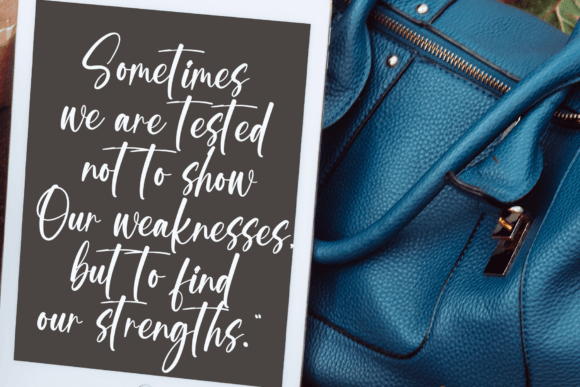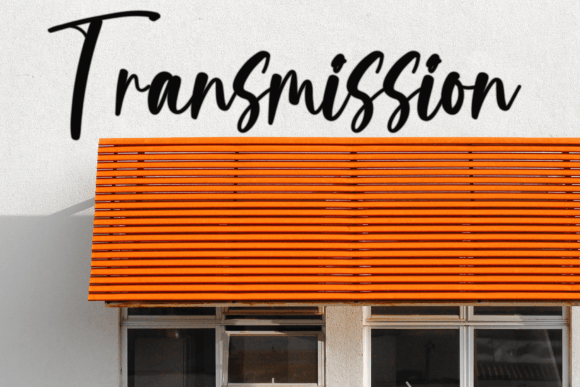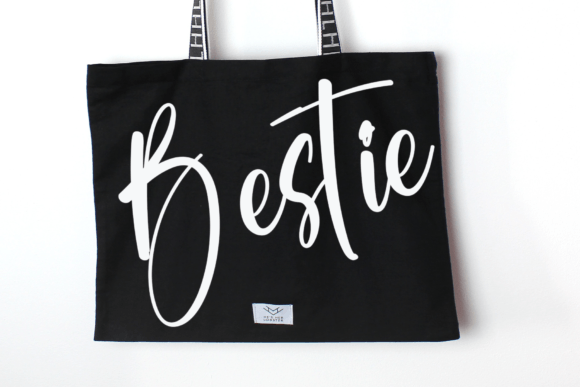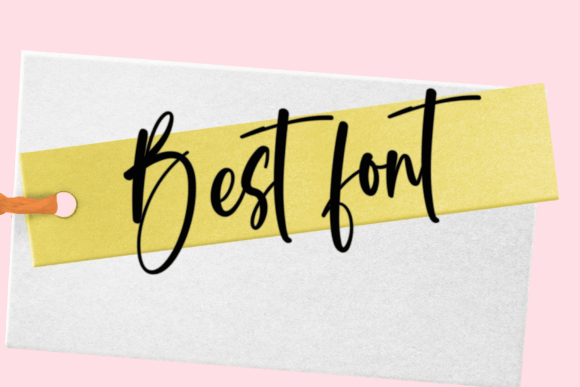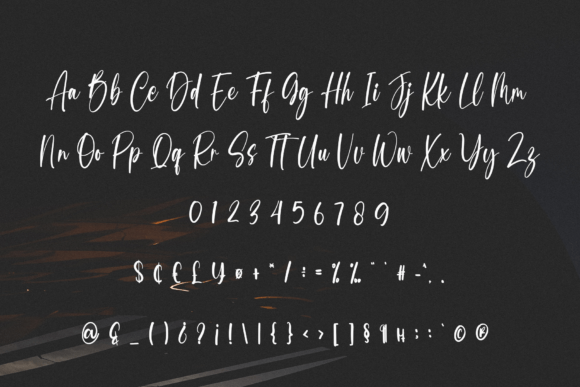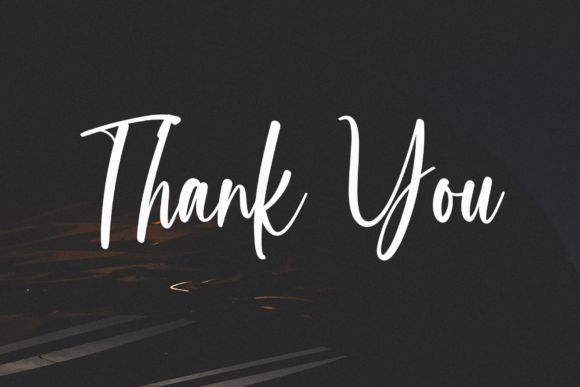
Discover the Charm of Discuss Font: Elevate Your Creative Projects
Are you on the hunt for a font that exudes warmth, friendliness, and a touch of playfulness? Look no further than the Discuss font, a delightful handwritten script that’s sure to capture your audience’s heart. In this article, we’ll dive into the world of Discuss font, exploring its features, uses, and benefits for designers, crafters, and creatives alike.
What is Discuss Font?
Discuss is a cute and casual handwritten font, carefully crafted to convey an incredibly friendly feel. Its unique, flowing script is perfect for adding a personal touch to your designs, making it an excellent choice for a wide range of creative projects. Whether you’re a designer, crafter, or DIY enthusiast, Discuss font is sure to become your new go-to.
Key Features of Discuss Font
- Handwritten script: Discuss font boasts a beautiful, handwritten script that’s both elegant and approachable.
- Friendly feel: The font’s unique character and flowing lines evoke a sense of warmth and friendliness, making it perfect for designs that require a personal touch.
- Cute and casual: Discuss font is ideal for projects that require a playful, laid-back vibe, such as social media graphics, invitations, and DIY crafts.
Uses for Discuss Font
Discuss font is incredibly versatile, making it suitable for a wide range of creative projects. Here are some popular uses for this charming font:
- Instagram graphics: Add a personal touch to your Instagram posts and stories with Discuss font, making your content stand out in a crowded feed.
- Calligraphy scripts: Use Discuss font for DIY calligraphy projects, such as handmade cards, invitations, and gift tags.
- Branding and packaging: Discuss font is perfect for branding and packaging designs that require a friendly, approachable feel.
- Stationery and journals: Add a touch of whimsy to your stationery and journals with Discuss font, making them perfect for personal use or as gifts.
Benefits of Using Discuss Font
So, why choose Discuss font for your creative projects? Here are just a few benefits of using this charming font:
- Easily readable: Discuss font is clear and easy to read, making it perfect for body text and headings.
- Highly versatile: The font’s friendly feel and playful script make it suitable for a wide range of creative projects.
- Time-saving: With Discuss font, you can quickly create professional-looking designs without spending hours on typography.
- Unique and creative: Discuss font adds a touch of personality to your designs, setting them apart from more traditional fonts.
Tips for Using Discuss Font
To get the most out of Discuss font, here are a few tips to keep in mind:
- Pair with contrasting fonts: Combine Discuss font with contrasting fonts to create visual interest and hierarchy in your designs.
- Experiment with colors: Discuss font looks great in a range of colors, so don’t be afraid to experiment and find the perfect hue for your project.
- Use it sparingly: While Discuss font is perfect for headlines and titles, use it sparingly for body text to avoid overwhelming your design.
In conclusion, Discuss font is a charming and versatile handwritten script that’s perfect for designers, crafters, and creatives looking to add a personal touch to their projects. With its friendly feel, cute and casual vibe, and highly readable design, Discuss font is sure to become a staple in your design toolkit. So why not give it a try and see how it can elevate your creative projects?